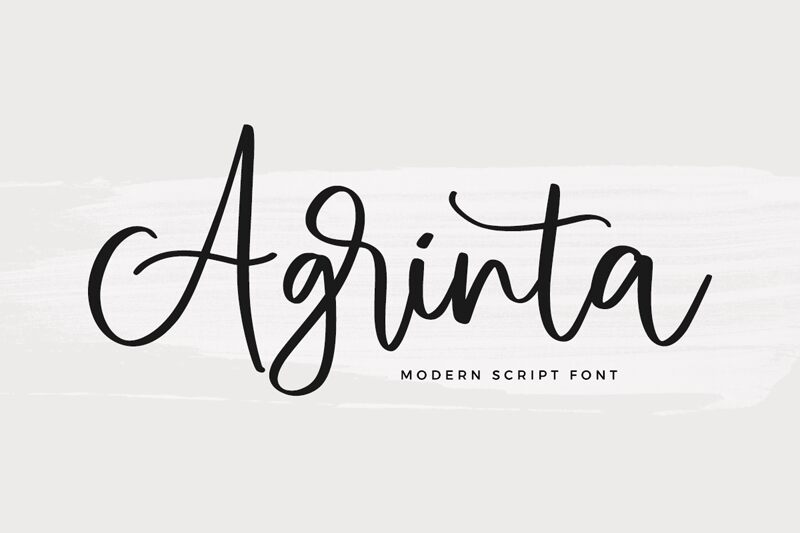
Agrinta
Agrinta, a modern calligraphy font designed by Kong Font, exudes an elegant and artistic vibe. With its semi-light weight, this font is perfect for creating stunning wedding invitations that capture the essence of romance.
Its fluid strokes and graceful curves also make it ideal for branding luxury fashion or beauty products, adding a touch of sophistication to any design project. Additionally, Agrinta's versatility lends itself well to crafting eye-catching social media graphics or blog headers that demand attention.
Let creativity flow with this exquisite font choice.